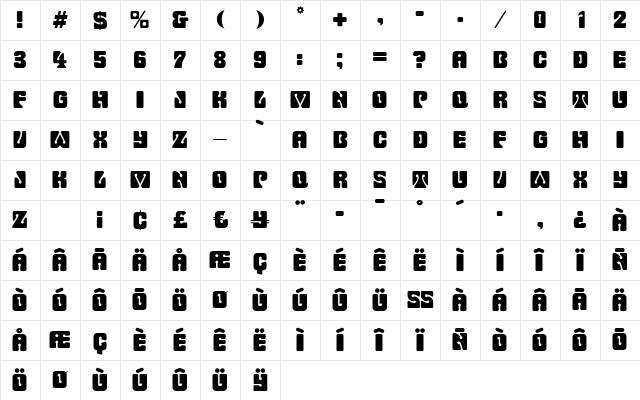
BiancaBecker Regular
Design Context for BiancaBecker
BiancaBecker is a composed and adaptable typeface that performs quietly and consistently across a wide range of design contexts.